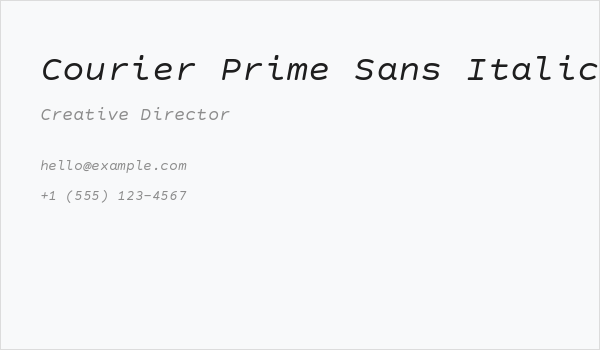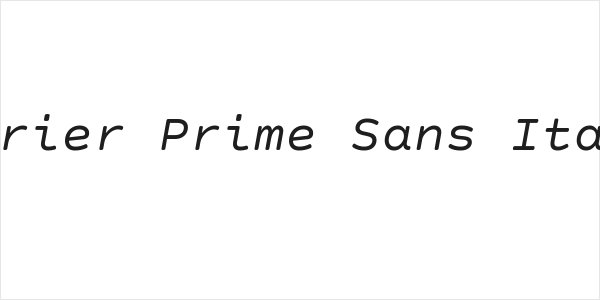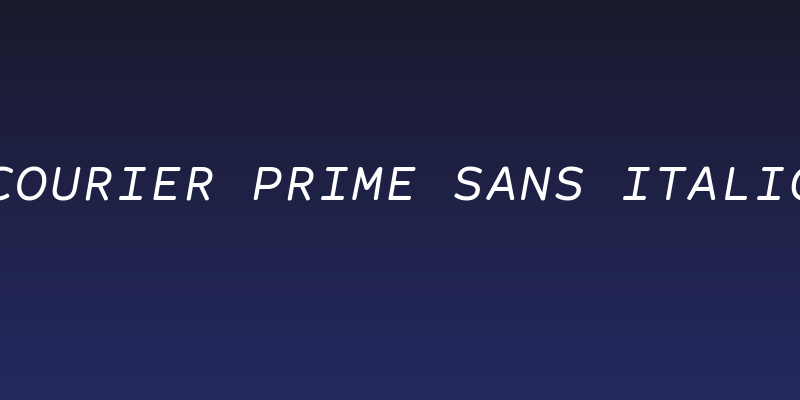
Courier Prime Sans Italic Font
Courier Prime Sans Italic Description
This font is a monospaced typeface with a clean and modern aesthetic. Each character is evenly spaced, providing a uniform and organized appearance. The italic style adds a subtle slant, giving it a dynamic and slightly informal feel. The strokes are consistent in thickness, offering low contrast, which enhances readability across various sizes. The design is straightforward, making it suitable for technical documents, coding, and any project requiring clarity and precision. The simplicity and uniformity of the characters make it versatile for both digital and print media.
| Use Case | Coding, Technical documents, Screenplays |
| Proposed Projects | Ideal for coding, technical documents, screenplays, and any project needing clear, uniform text. |